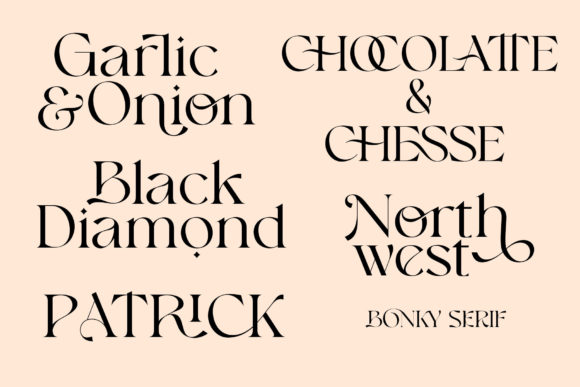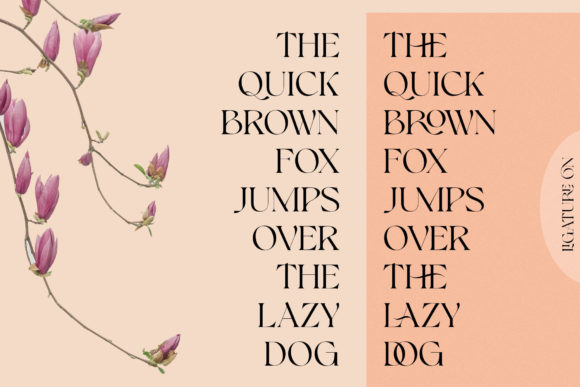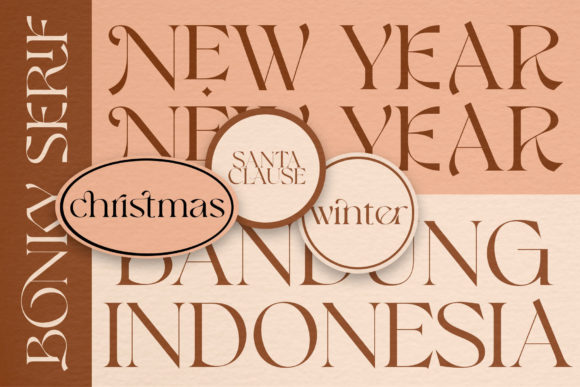
Introduction to Bonky Font
You know that moment when you’re working on a creative project and you stumble upon the perfect design resource? For many designers, that moment is what makes all the hard work worth it. I still remember the day I discovered the Bonky Font – it was love at first sight! Its ravishing style and elegant curves instantly caught my attention, and I knew I had to share it with the world.
As a designer, you understand the importance of having high-quality fonts that can elevate your work to the next level. Bonky Font is a valuable addition to any design arsenal, offering a unique and sophisticated look that’s perfect for creating gorgeous wedding invitations, beautiful stationary art, and eye-catching social media posts.
One of the things that sets Bonky Font apart is its versatility – it looks stunning with a transparent background, making it a great choice for digital designs. And the best part? It’s available for free download, making it a valuable resource for designers of all levels.
Key Features of Bonky Font
- High-quality design resource with a transparent background, perfect for creative projects.
- Designed with a unique, playful style that can add a touch of whimsy to any design.
- Resolution-independent, ensuring that the font looks sharp and clear at any size.
Honest Review: Bonky Font
As a designer, I’m always on the lookout for unique and high-quality design resources. Recently, I had the chance to try out the Bonky Font, and I’m excited to share my thoughts with you.
What works well with the Bonky Font is its playful and creative vibe. It’s perfect for designers who want to add a touch of whimsy to their projects. The font is available for free download, making it a great option for those on a budget. Additionally, it’s available in a transparent background, which is a nice feature for designers who want to easily overlay text on images.
- Unique and creative design
However, one limitation of the Bonky Font is its limited character set. While it’s perfect for short text, it may not be suitable for longer blocks of text. ⚠️
Overall, I’m impressed with the Bonky Font. It’s a great addition to any designer’s toolkit, and its playful vibe makes it perfect for creative projects. With its high quality and free download option, it’s definitely worth checking out.
Common Use Cases for Bonky Font
Bonky Font is perfect for designers who want to add a unique touch to their projects. Some common use cases include:
- Presentation design
- Document design
To get the most out of Bonky Font, use it in conjunction with a transparent background to create eye-catching graphics. Experiment with different font sizes and styles to find the perfect look for your project. With Bonky Font, the possibilities are endless!